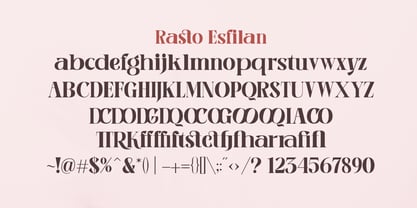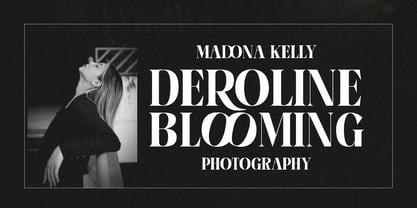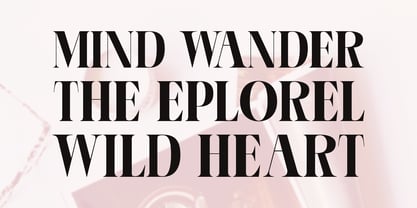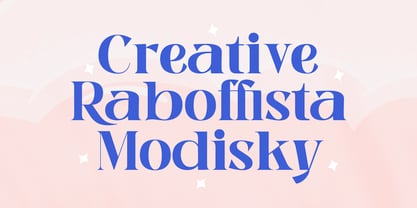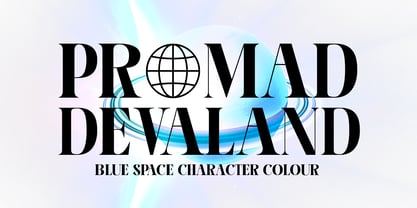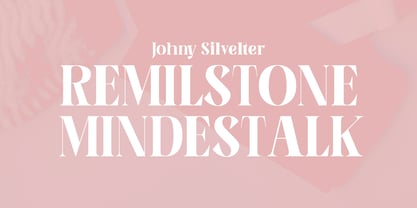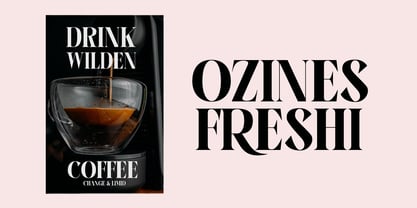
Rasto Esfilan
by Saytype
The Rasto Esfilan Font Family was designed by Sayuti Yuti and published by Saytype. Rasto Esfilan contains 2 styles and family package options. More about this family
Rasto Esfilan font with charming and elegant style. Characters that match the latest style will be very interesting for you to create design works with classy models but still maintain a stable and classy style to look at.
You will have inspiration with many Ligature and swash Glyph alternates styles to combine with your great creativity!
Designers: Sayuti Yuti
Foundry: Saytype